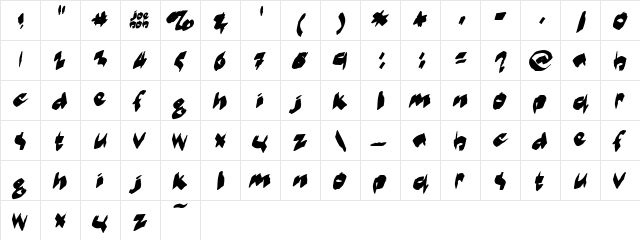
markerMoe Regular
Design Context for markerMoe Typeface
markerMoe is a composed and adaptable typeface that performs quietly and consistently across a wide range of design contexts.